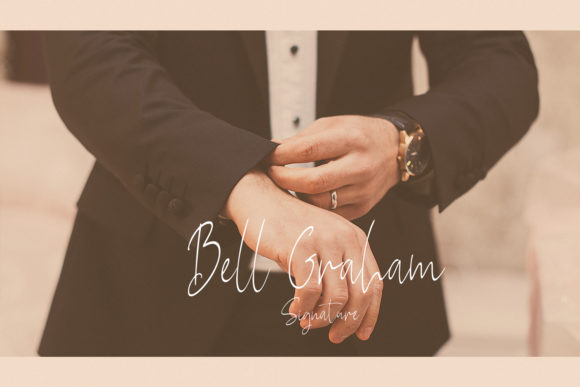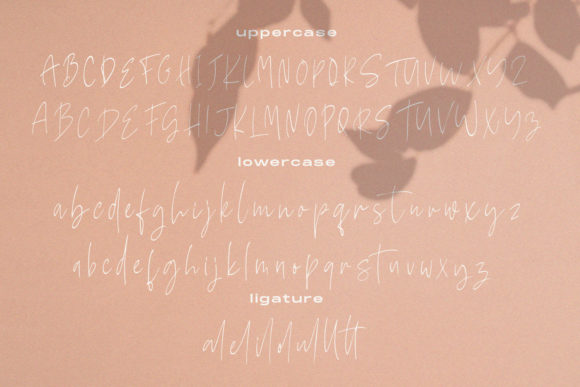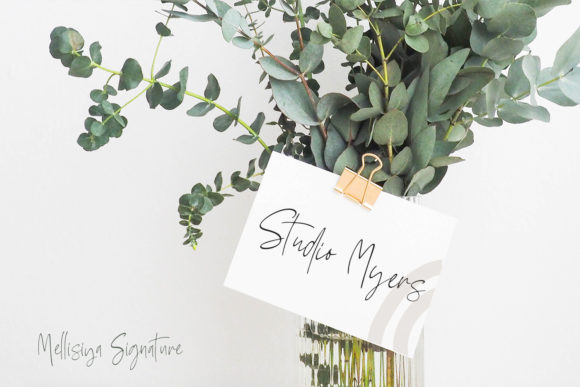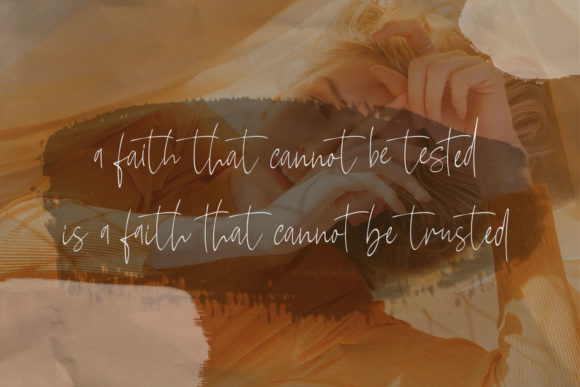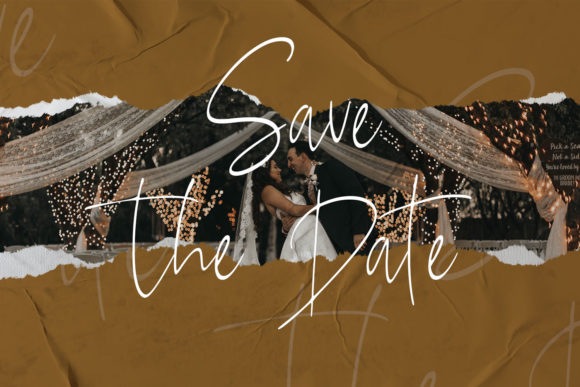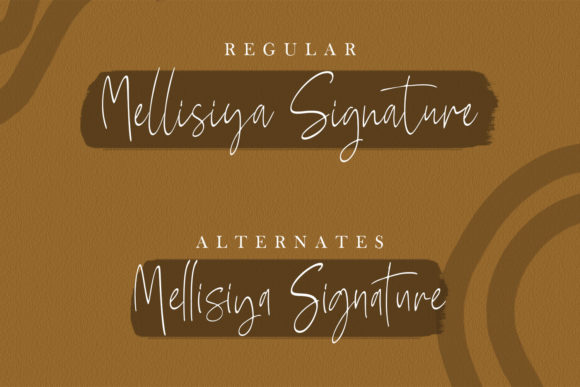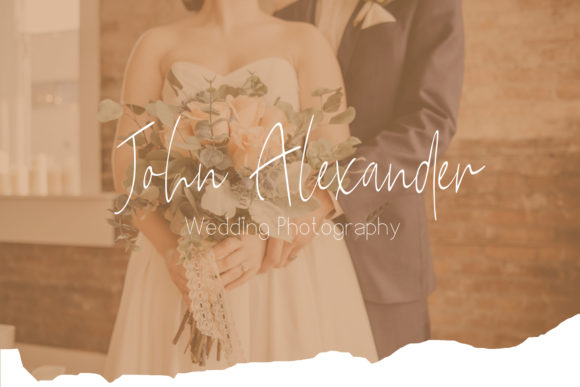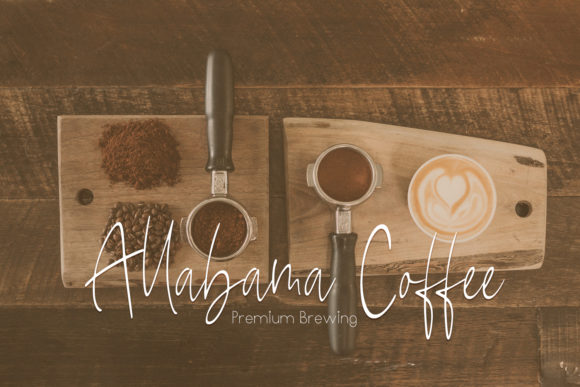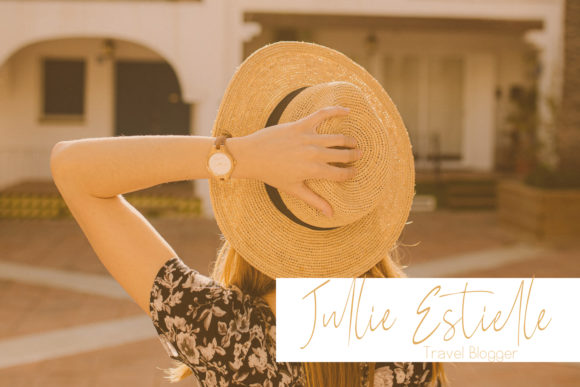
HomeScript FontsMellisya Signature Font Script Fonts Mellisya Signature Font FacebookXPinterestWhatsApp Mellisya Signature Font Poster 2 Mellisya Signature Font Poster 3 Mellisya Signature Font Poster 4 Mellisya Signature Font Poster 5 Mellisya Signature Font Poster 6 Mellisya Signature Font Poster 7 Mellisya Signature Font Poster 8 Mellisya Signature Font Poster 9 Mellisya Signature Font Poster 10 About Mellisya Signature Font Mellisya Signature is a modern script font with lovely curves. Fall in love with its romantic appearance! DOWNLOAD NOW People also explored Dancing Cat Font Jack & Jean Script Font Melisa Jasmine Font Sprinkiss Font Namex Font Moody Font Simple Line Font Diary Autumn Font Bronwen 295 0 TagsMellisya Signature Font Previous articleShergine FontNext articleMarryliane Font LEAVE A REPLY Cancel reply Comment: Please enter your comment! Name:* Please enter your name here Email:* You have entered an incorrect email address! Please enter your email address here Website: Save my name, email, and website in this browser for the next time I comment. Personal Use Free Good Timing – Bold Personal Use Free Read more about this font Unicorn Kids Personal Use Free Read more about this font Nickainley Personal Use Free Read more about this font Bosk Personal Use Free Read more about this font BLOG Free vs Paid Fonts: Why Investing in Premium Fonts Is Worth It Free vs Paid Fonts: Why Premium Fonts Are Worth It in 2025 The debate of free vs paid fonts continues in the design world. While... How to Cut Any Font on Cricut: Convert a Font to SVG (Free) 5 Fonts That Will Dominate Design Trends in 2026 Elegant Wedding Invitation Fonts – Handwritten & Script Fonts